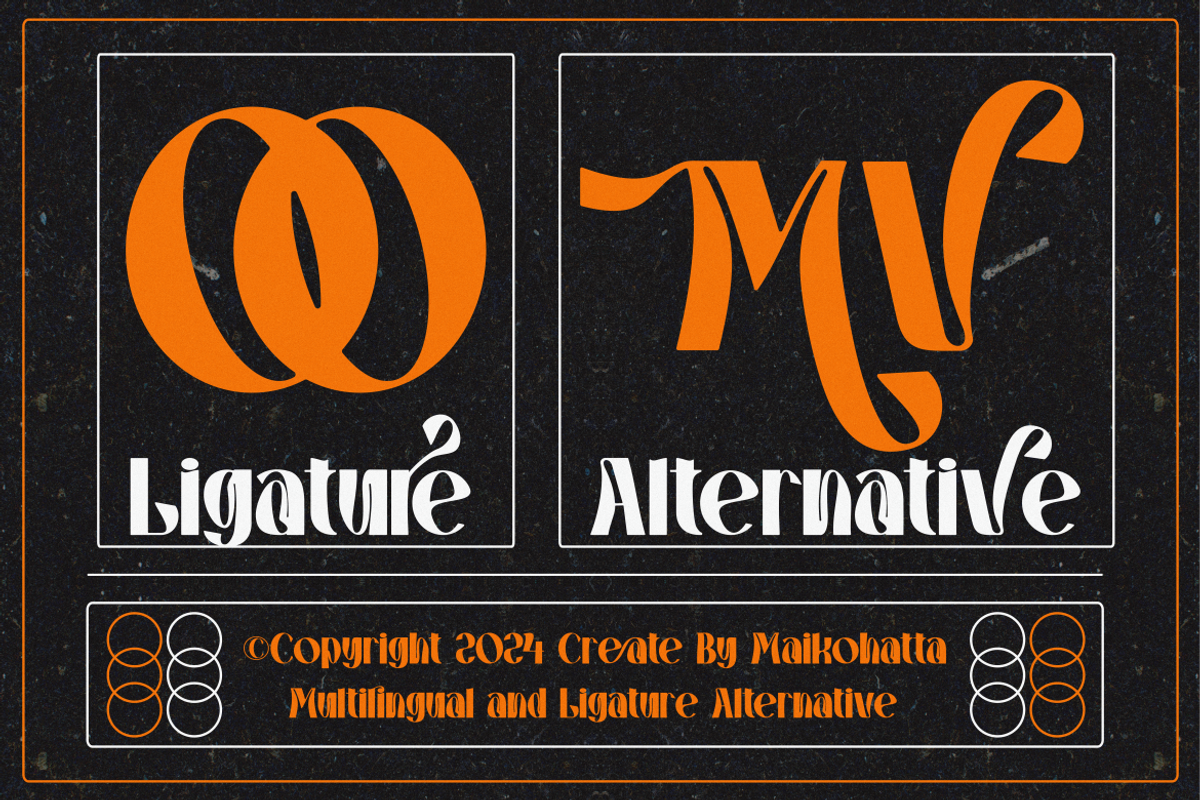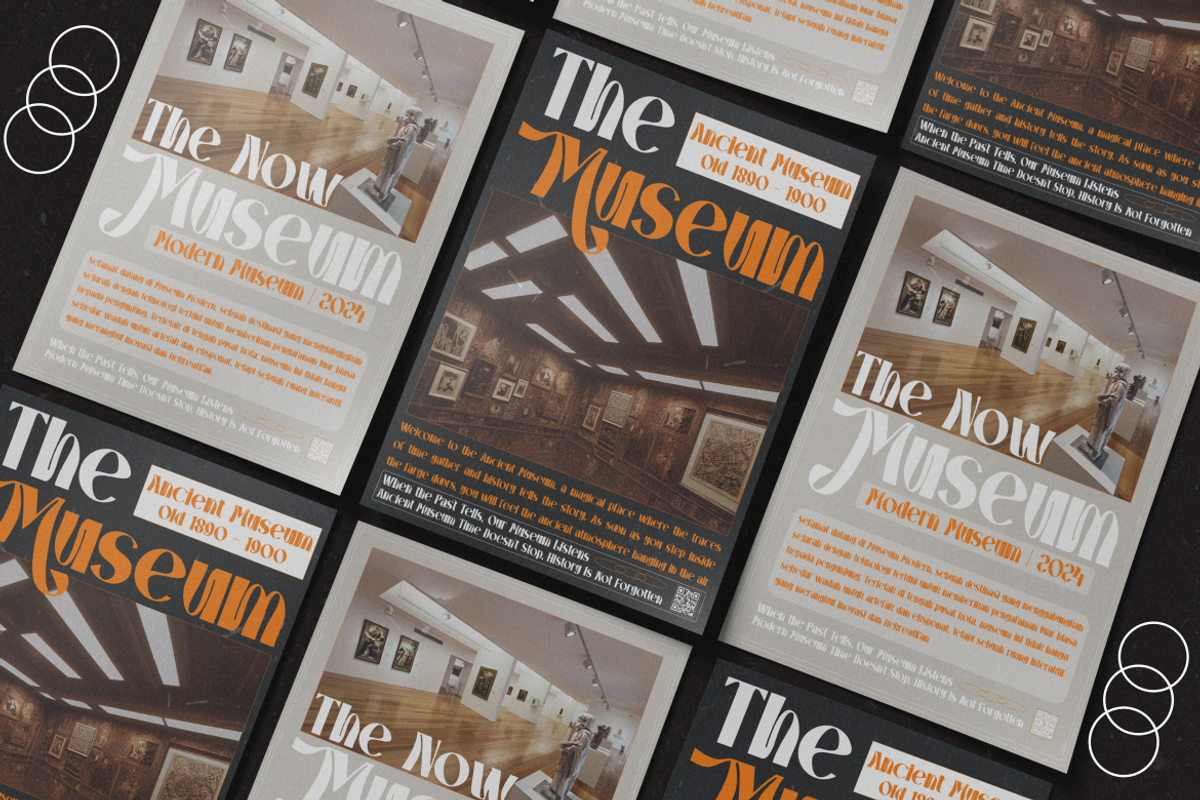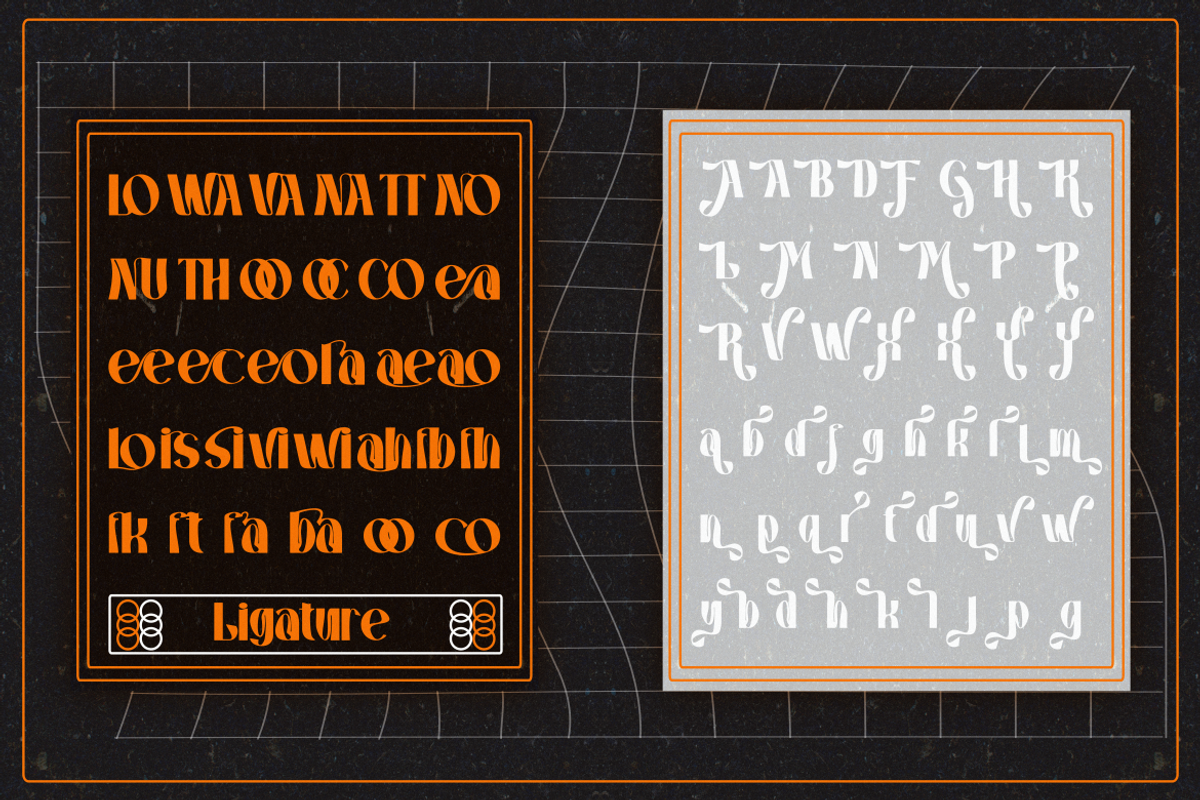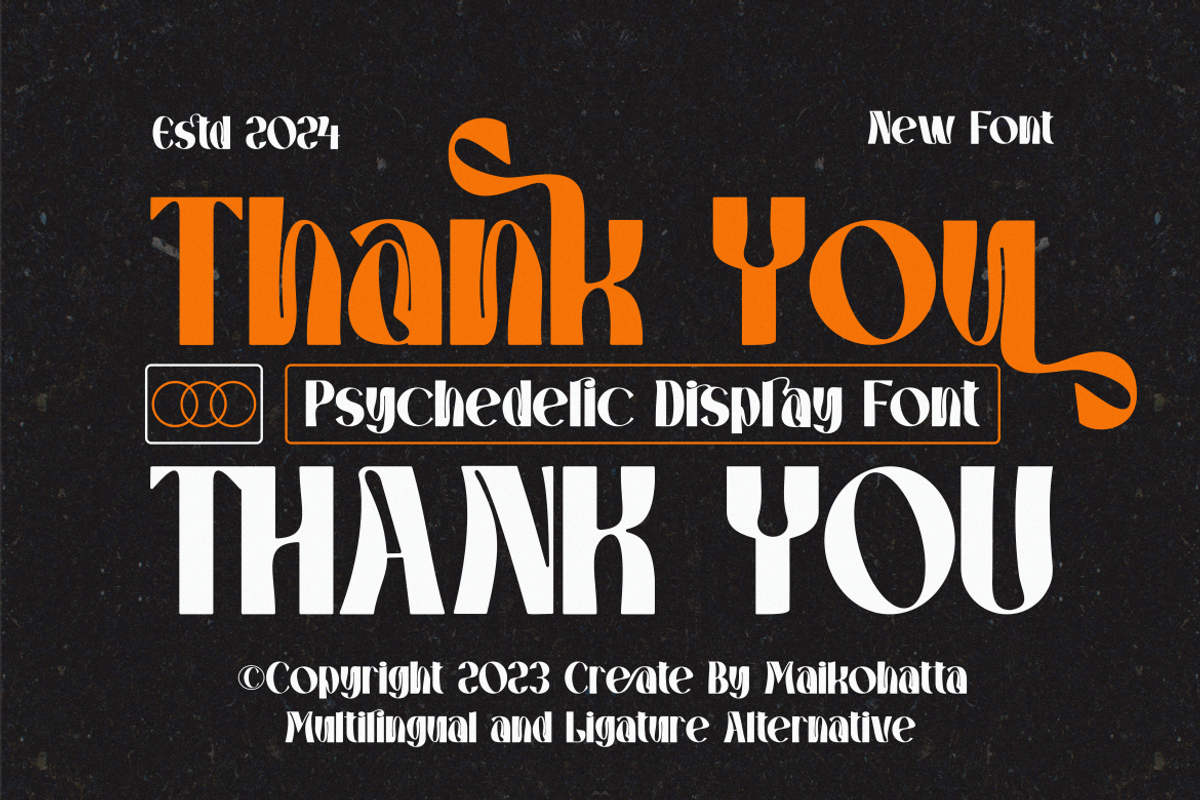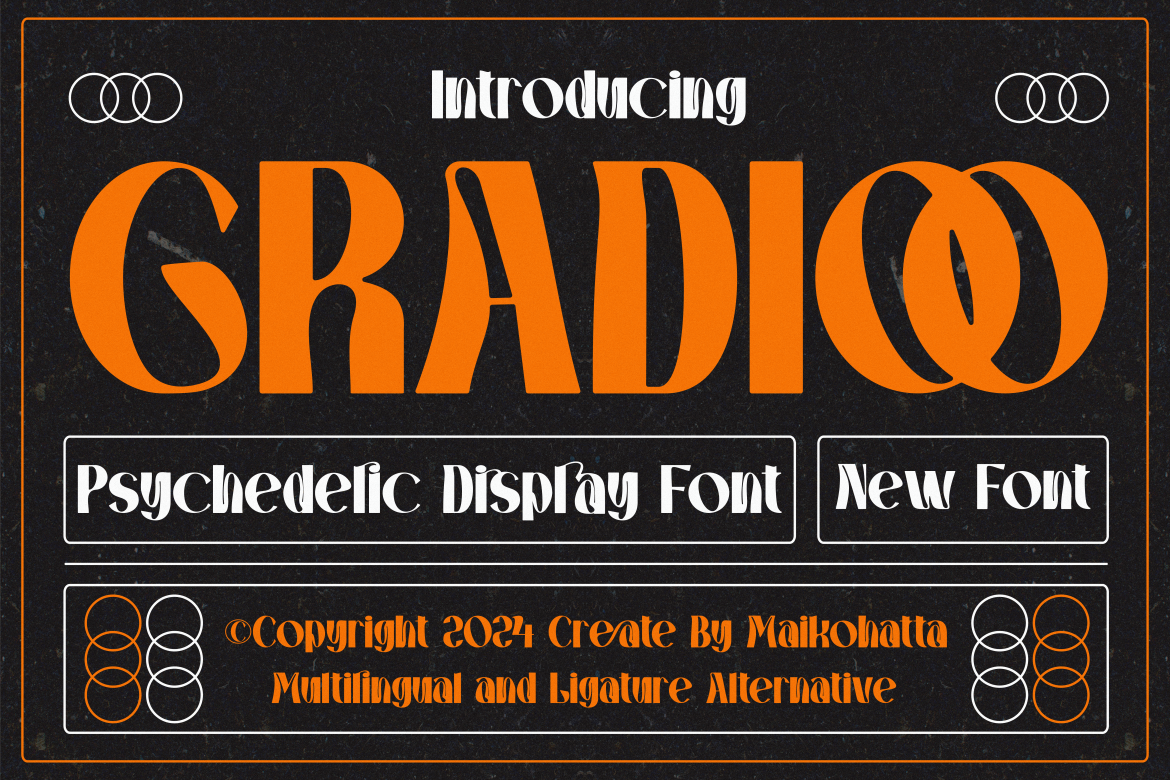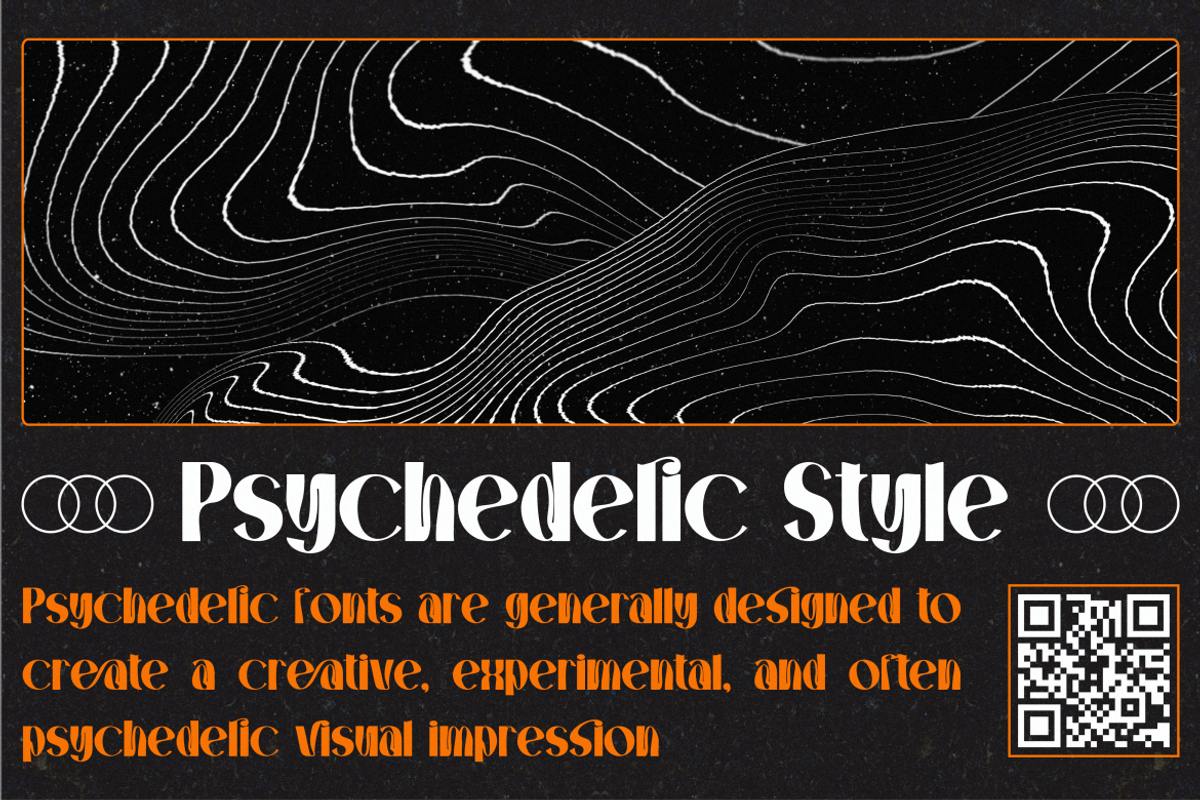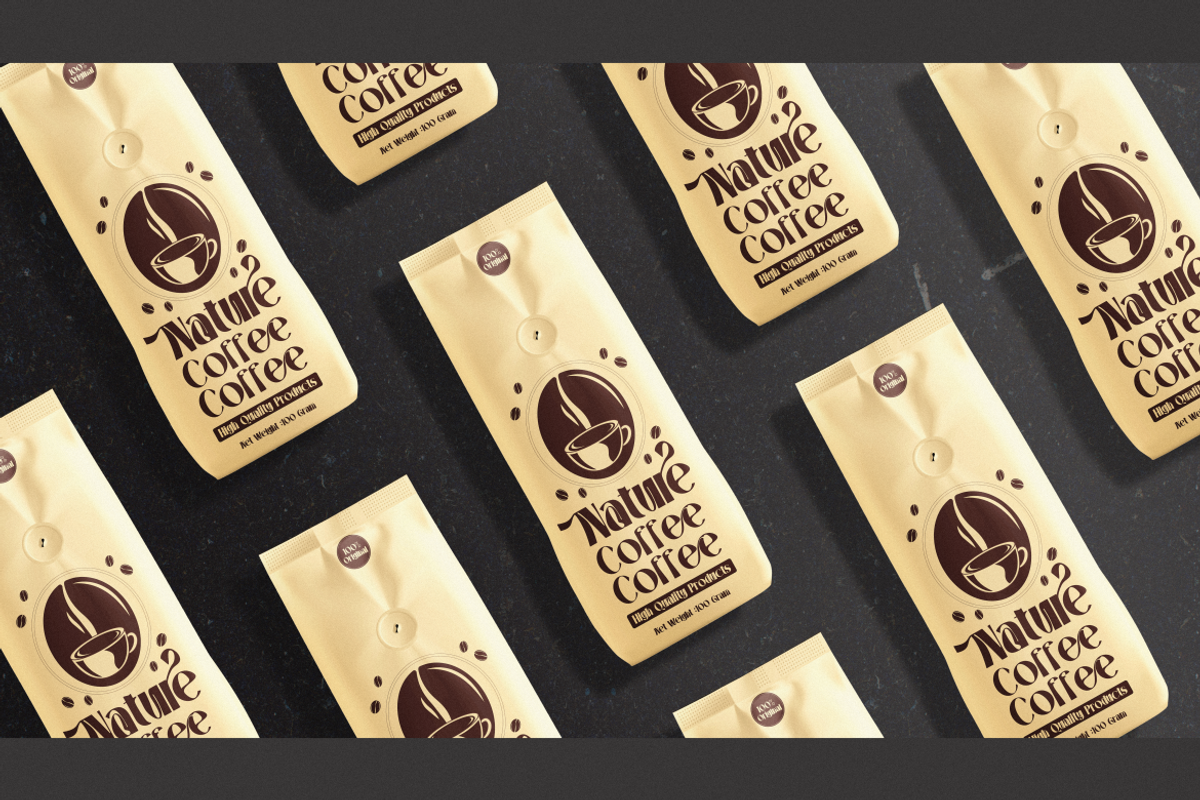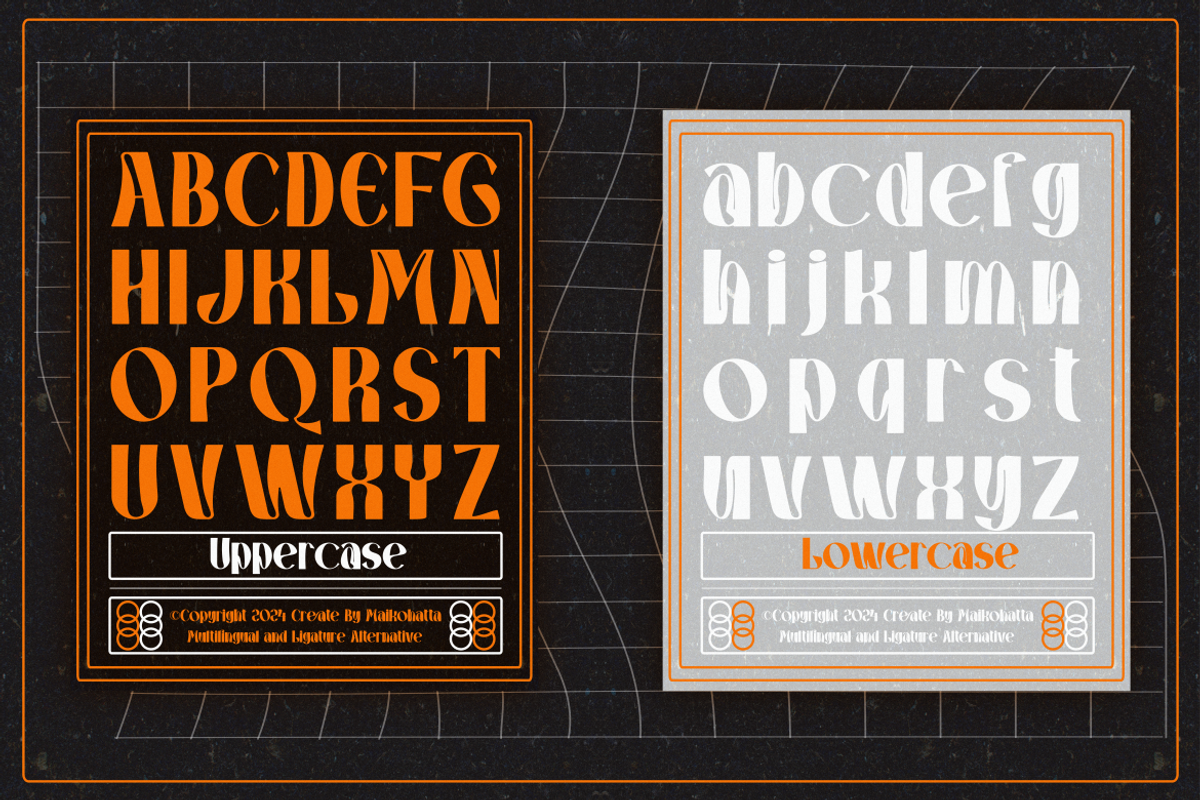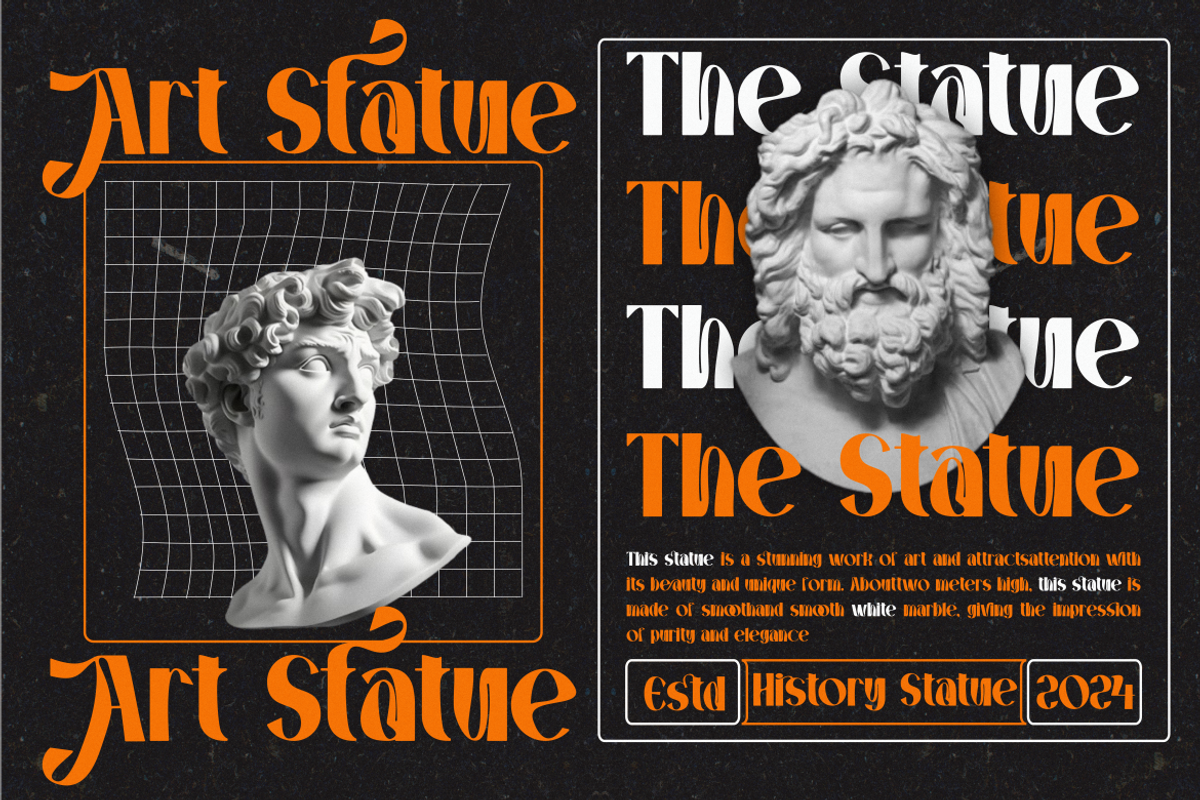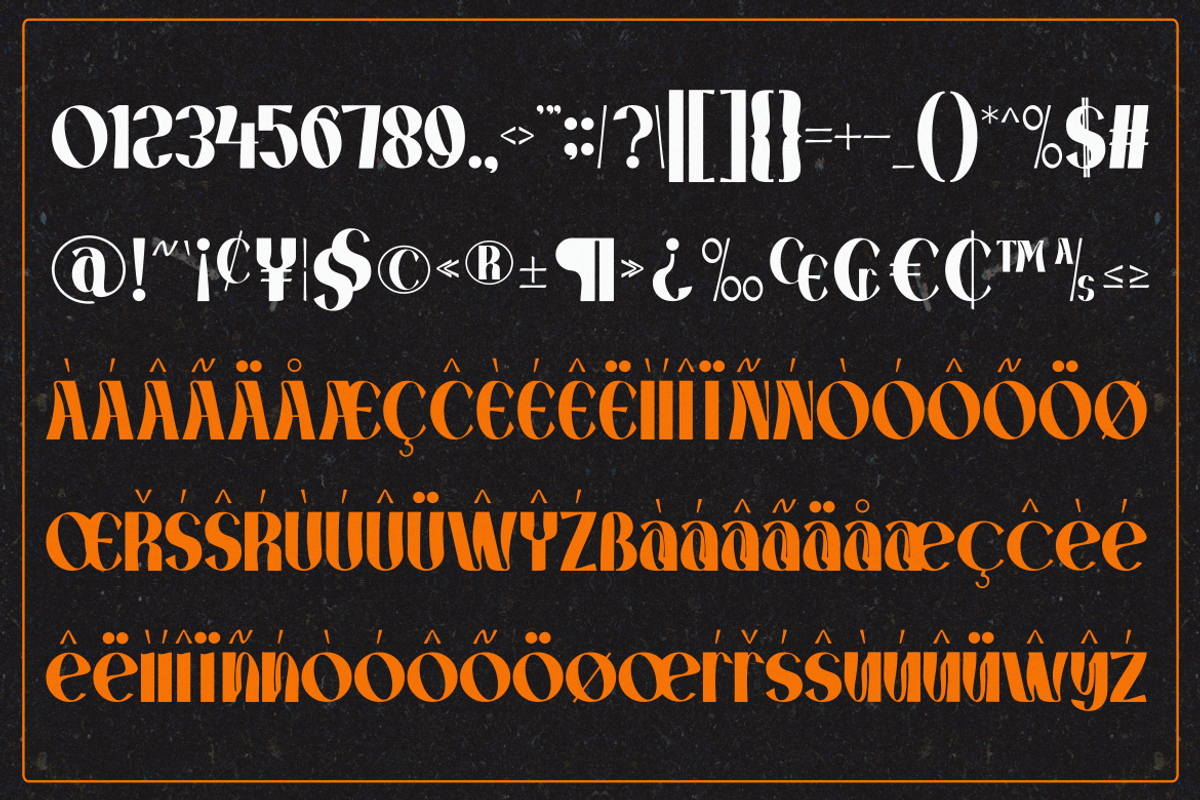
Gradioo - Psychedelic Display Font
Introducing our new product Gradioo - Psychedelic Display Font
This font has energetic and abstract characteristics with a contemporary design perspective, offering a captivating visual experience, making it a valuable tool for designers who want to infuse their projects with a sense of adventure and creative experimentation. Psychedelic style is a creative and expressive typeface, often combining artistic elements, colors, and eye-catching designs. This font is commonly used in graphic designs, posters, art, and promotional materials that want to create a striking, experimental, or unique visual appearance.